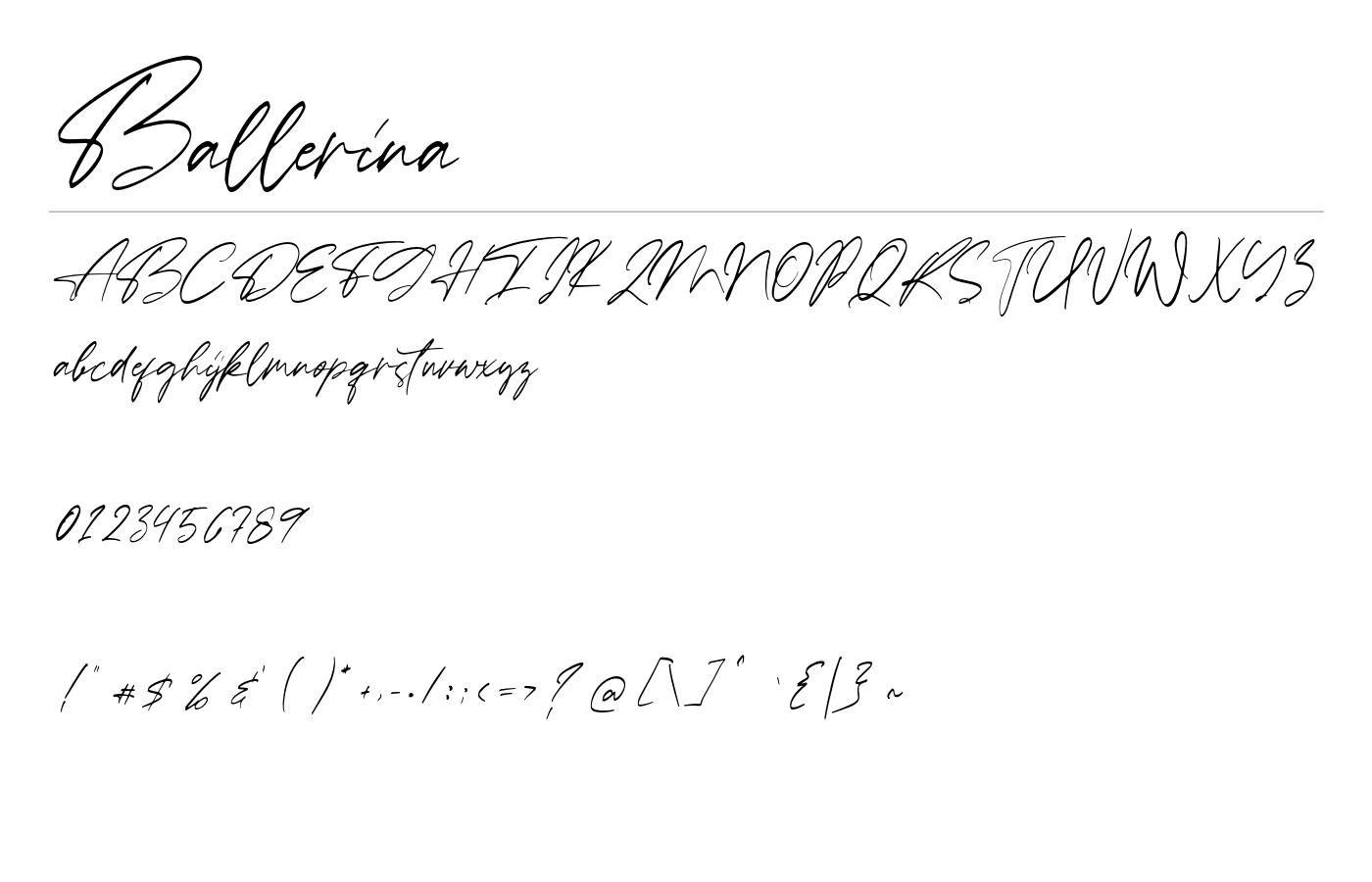
Ballerina is an elegant, flowing script font characterized by its thin, graceful strokes and a delicate handwritten style that mimics natural calligraphy. With its slender, airy letterforms and smooth connections, it conveys a sense of sophistication and charm, making it ideal for fashion branding, invitations, and feminine or artistic designs. This font works best in headlines or decorative use where a personal, stylish touch is desired.
Ballerina Font
About Ballerina Font
| Font family | Ballerina Font |
| Designer | StringLabs |